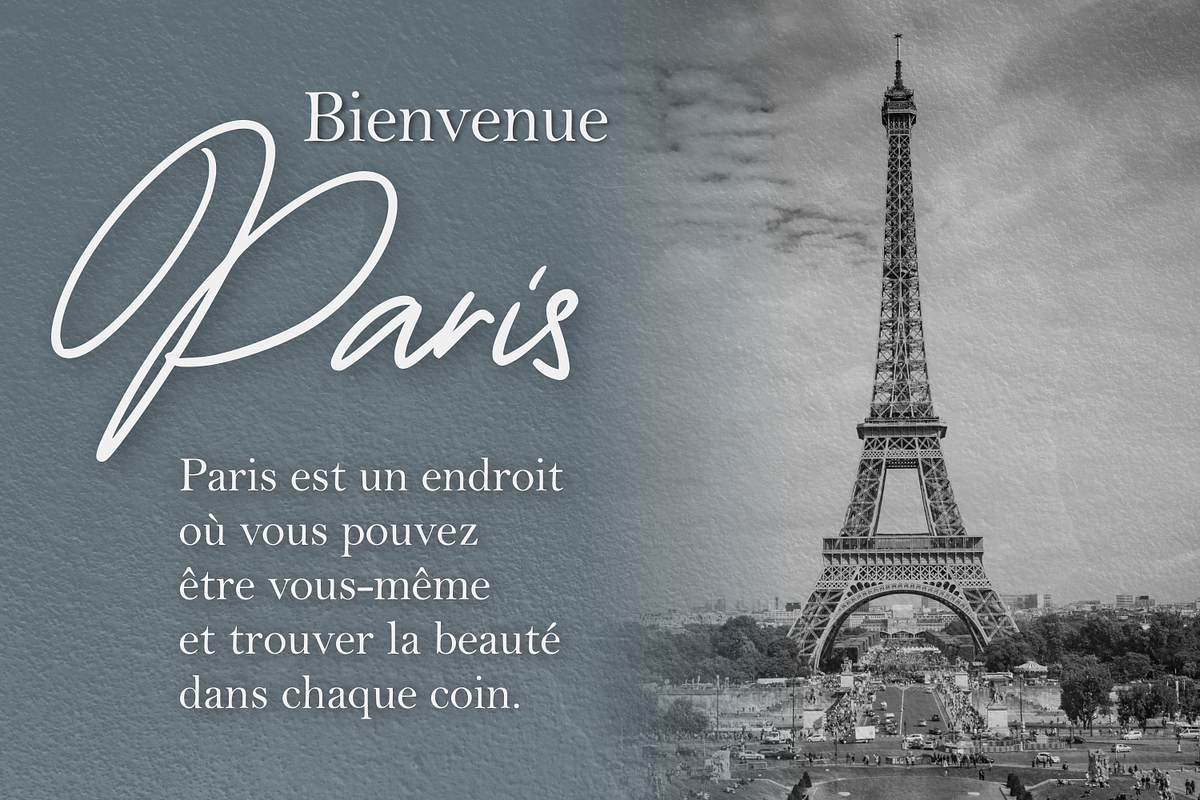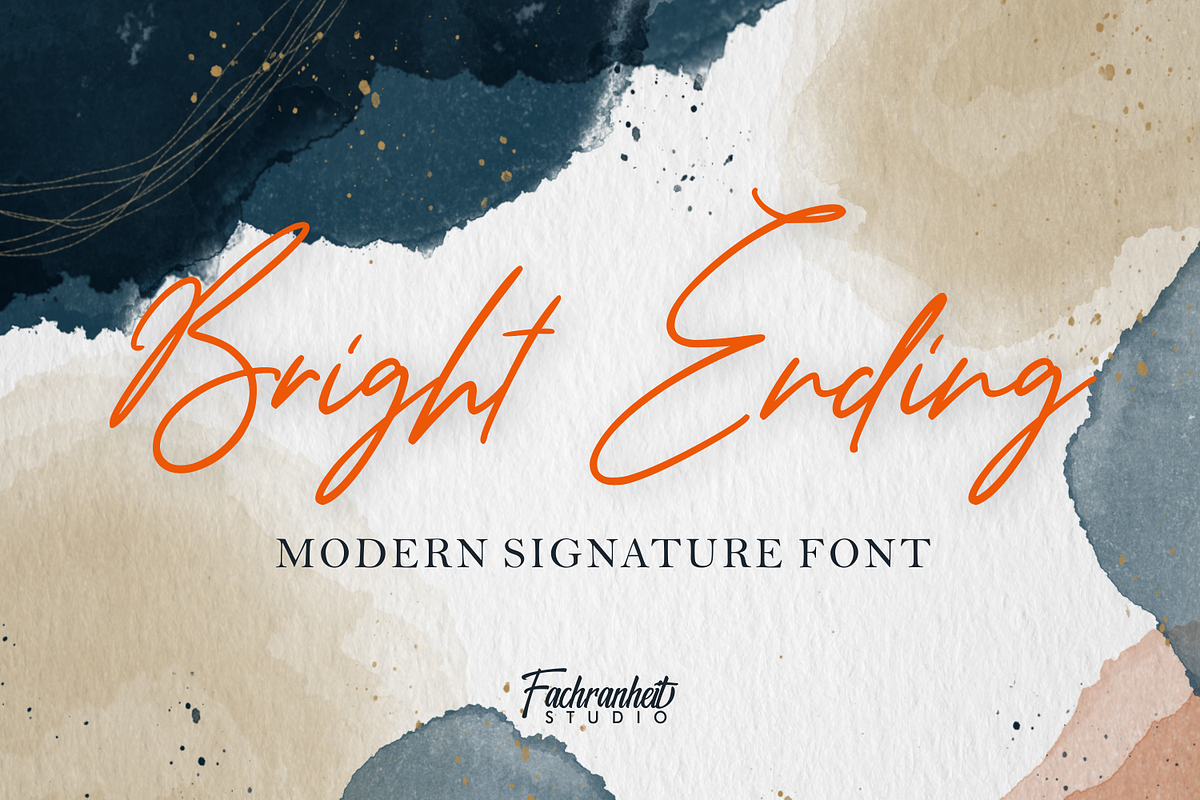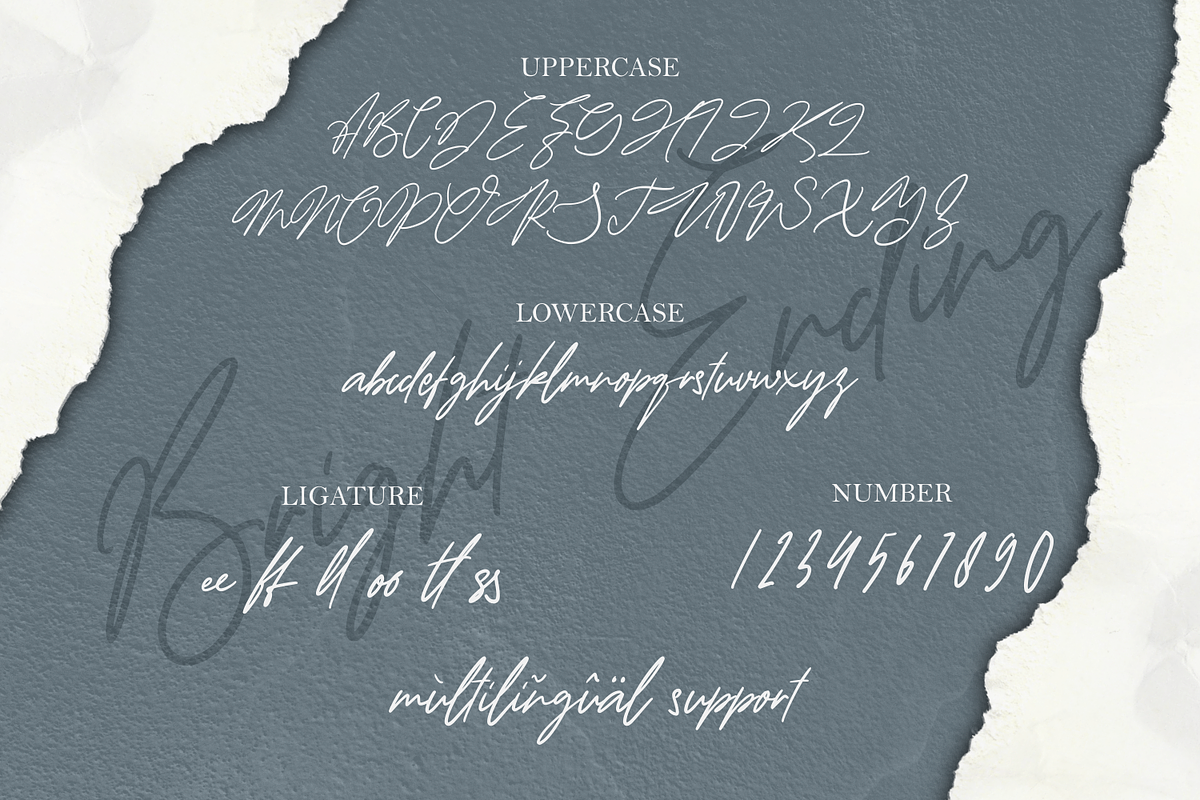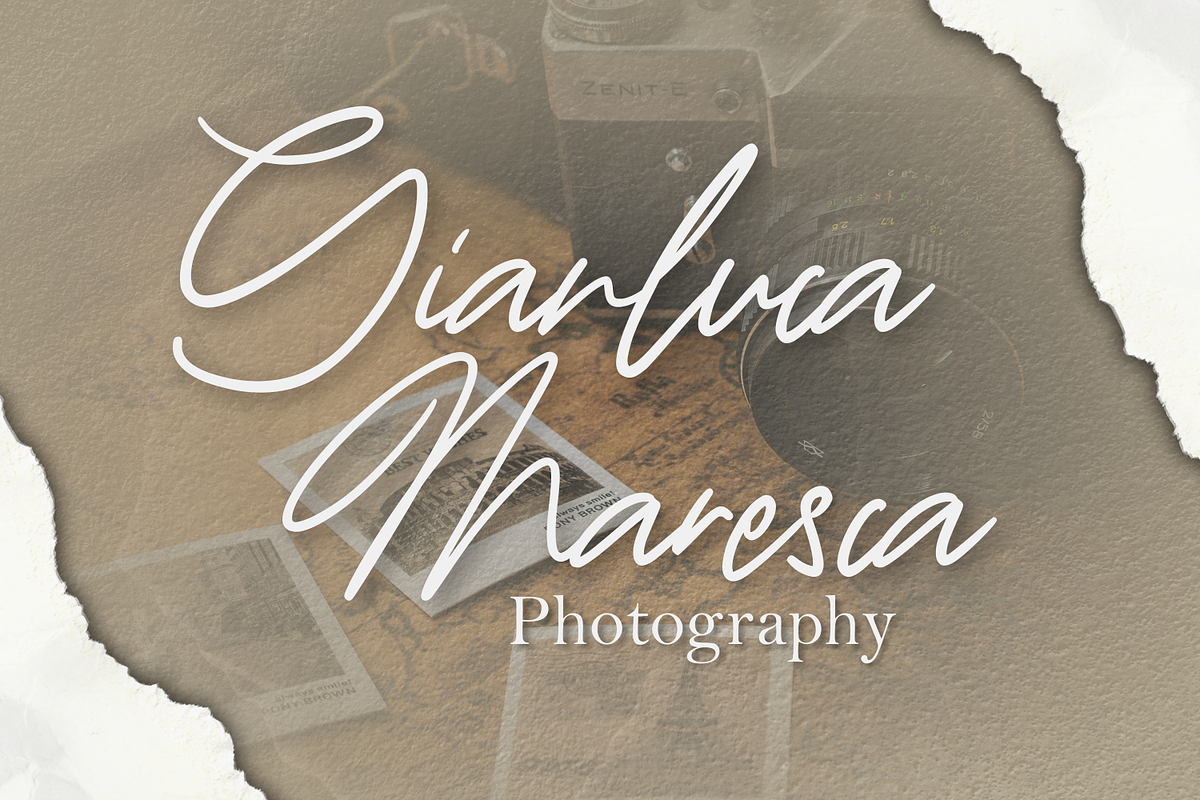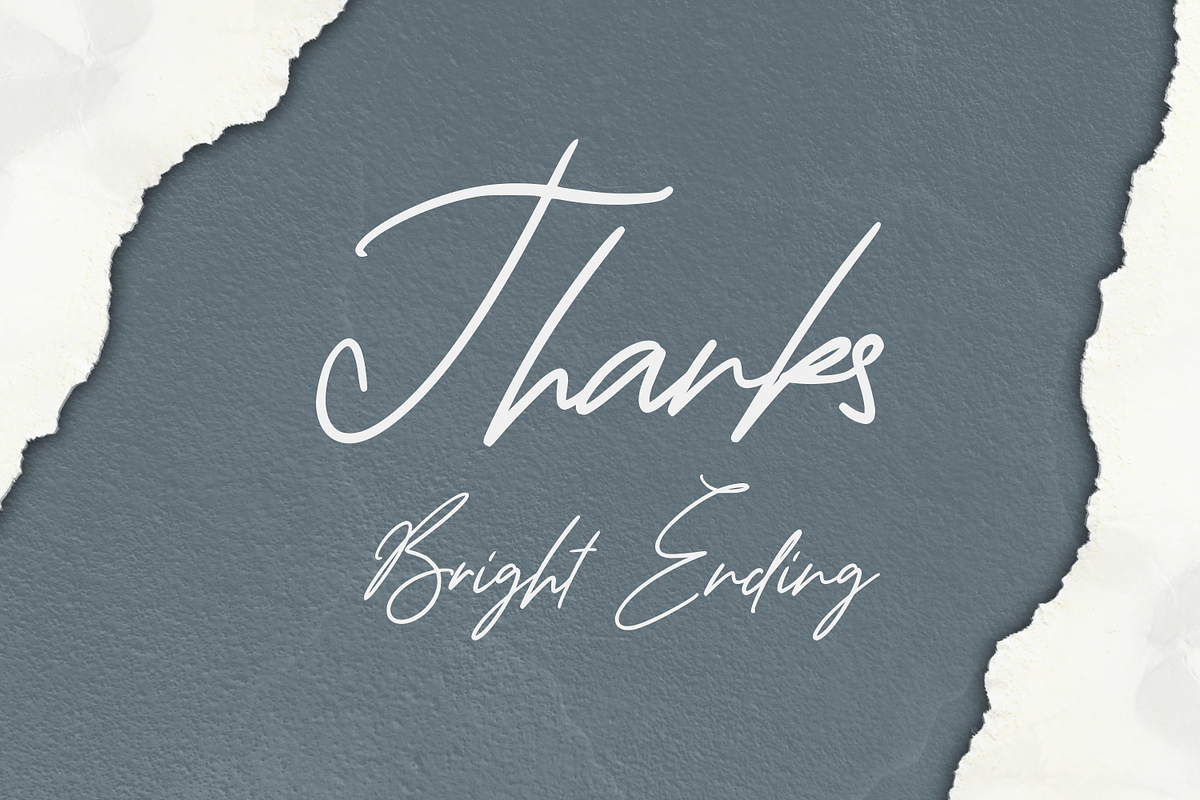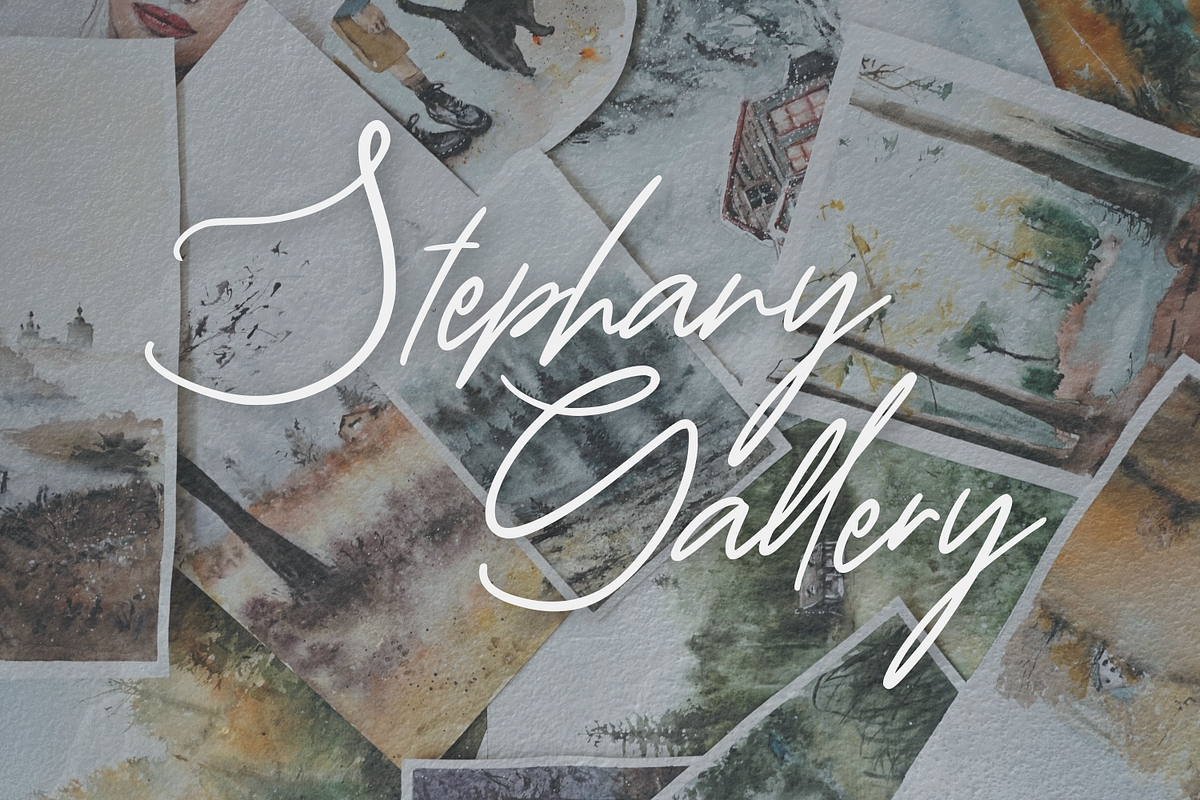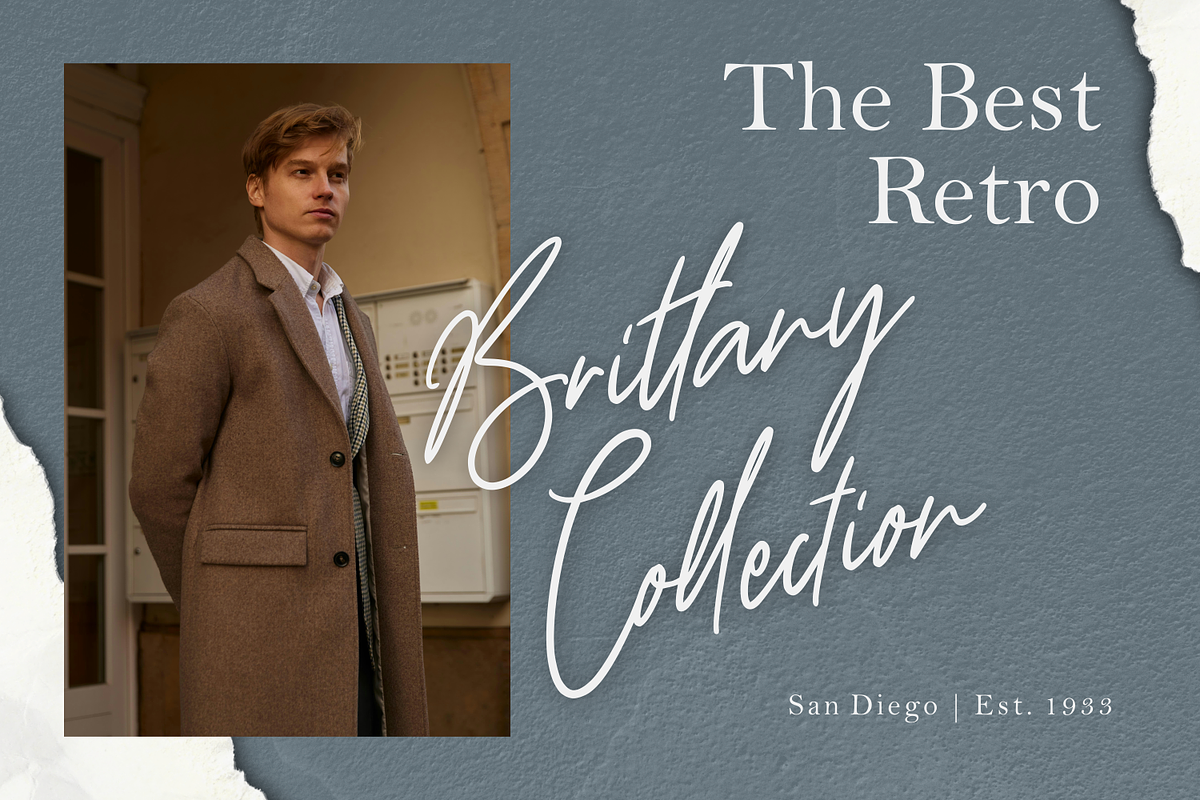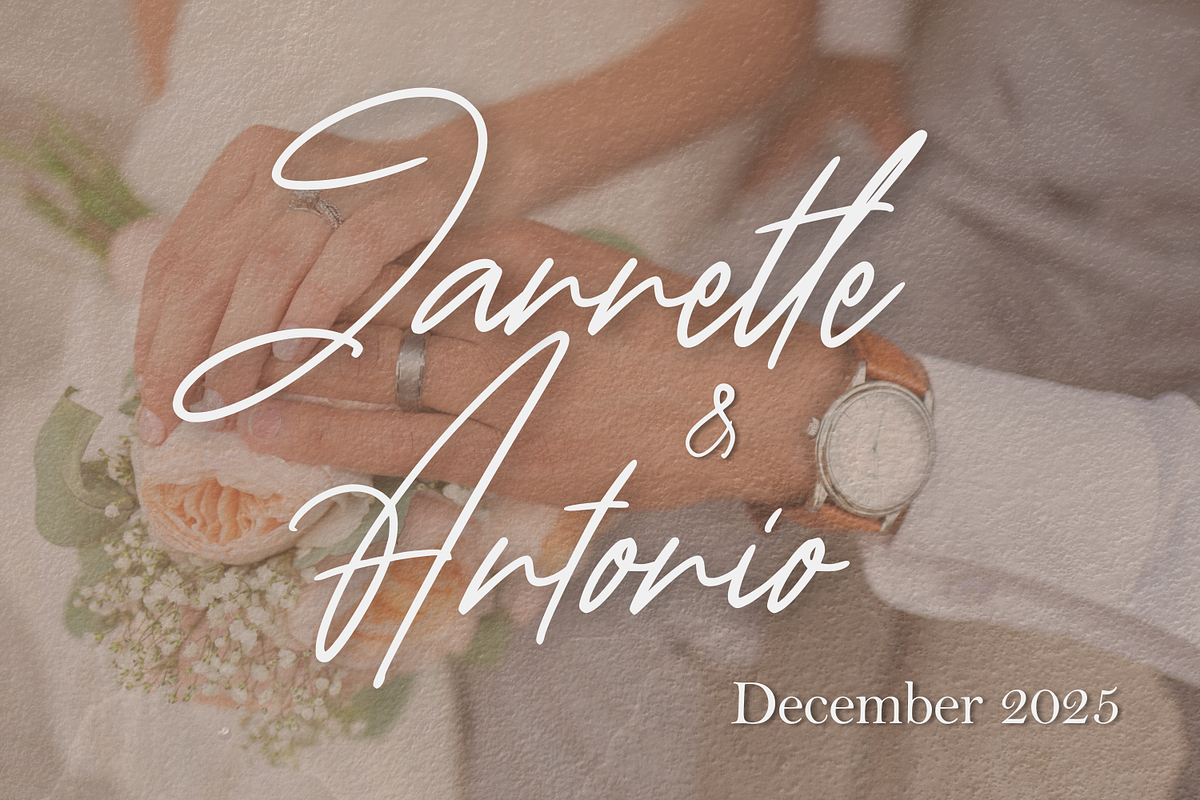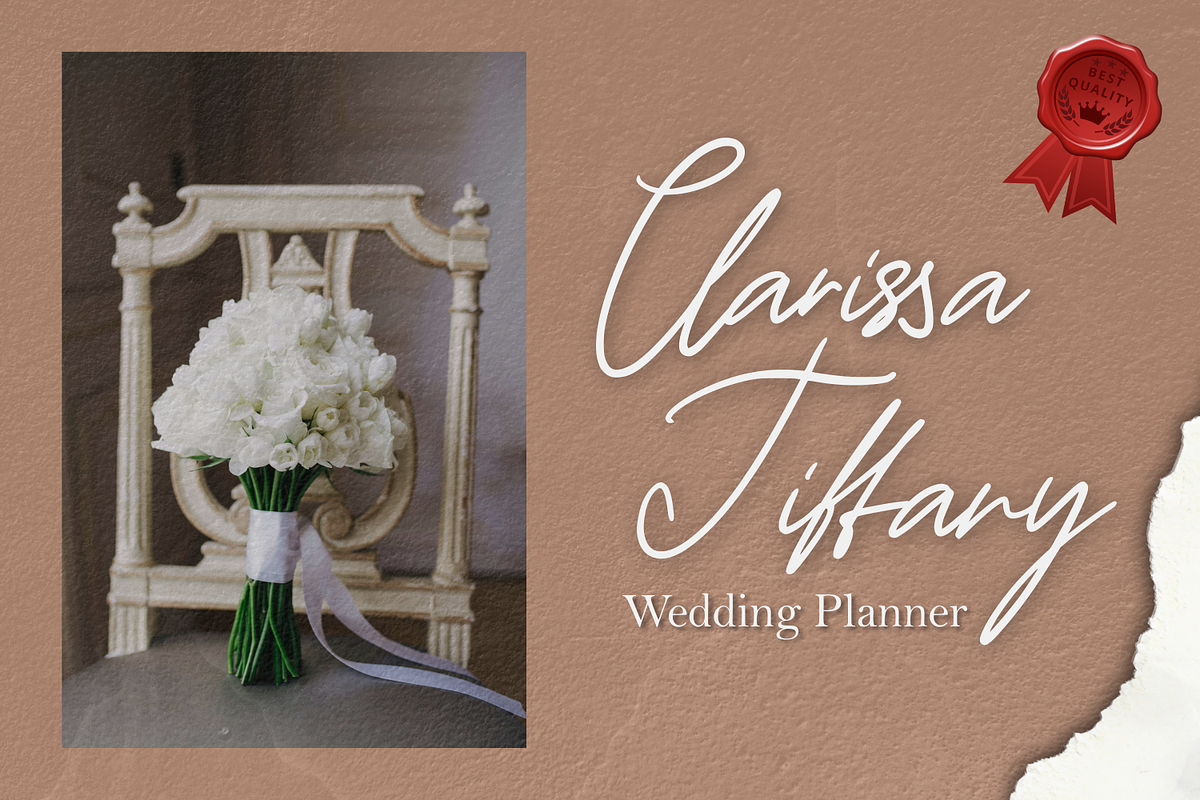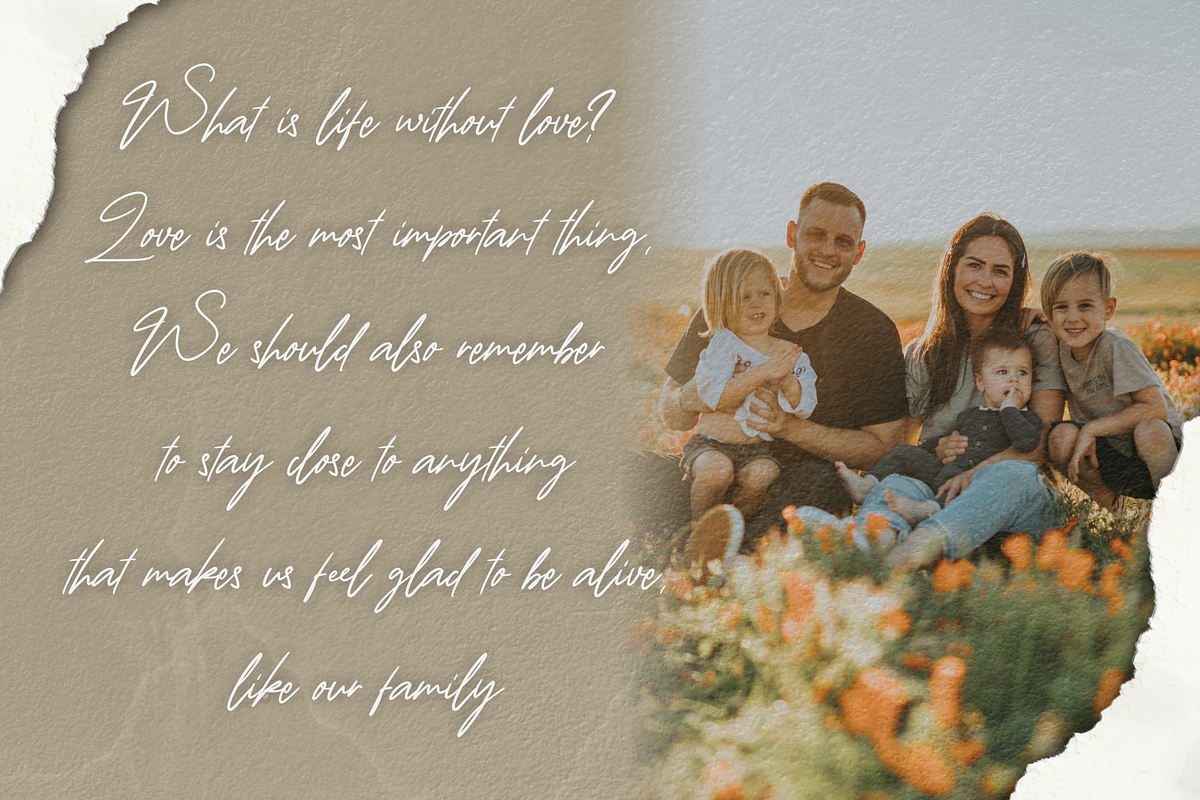
Bright Ending
Bright Ending is a Modern Signature font
The simple characteristics of Bright Ending make it very suitable for various purposes such as quotes, wedding card, flyers, logos, logotype, labels, branding etc.